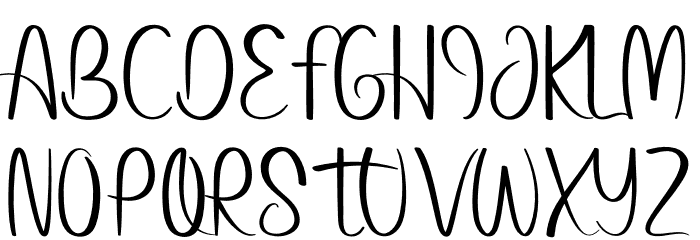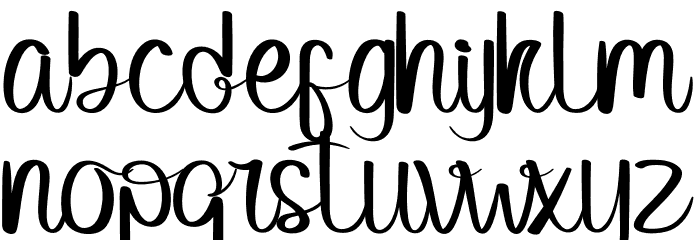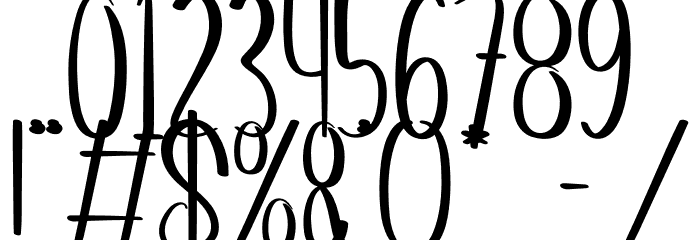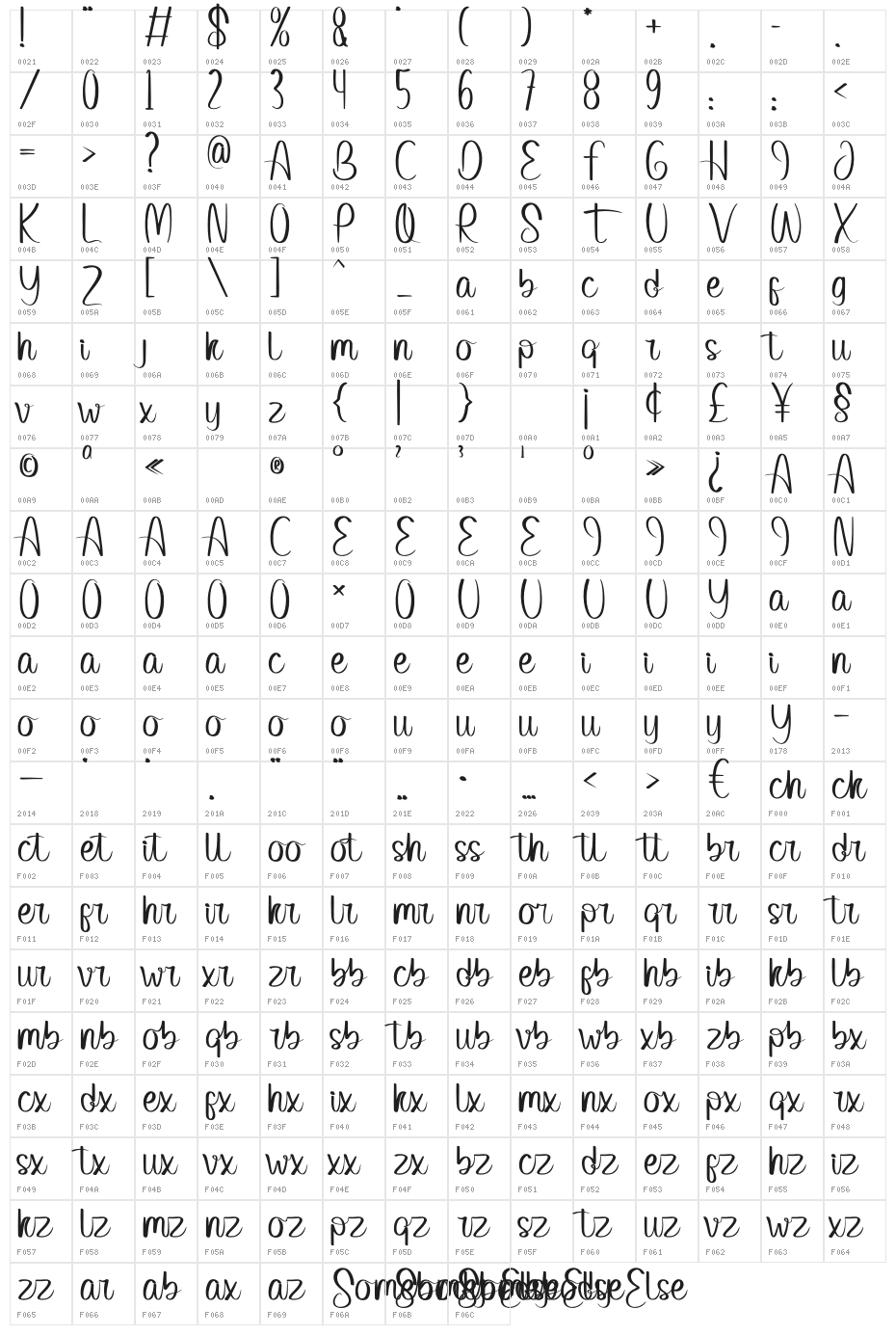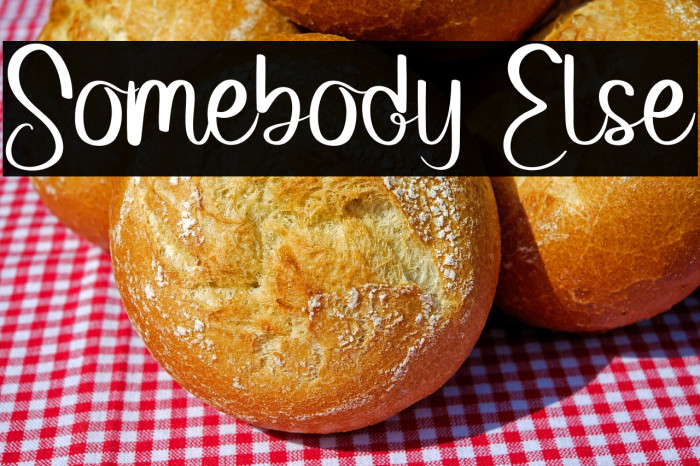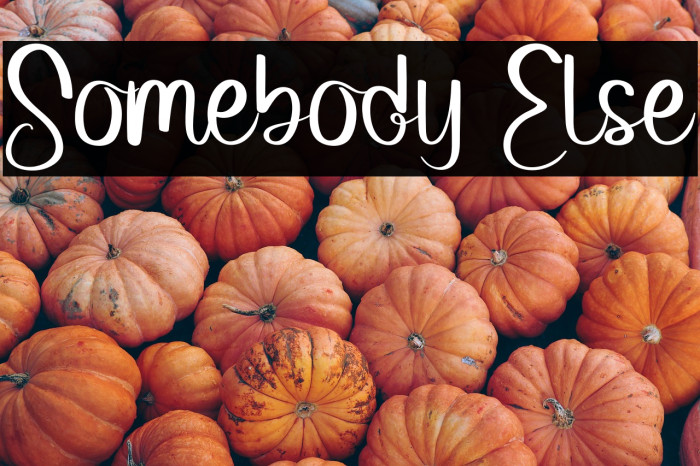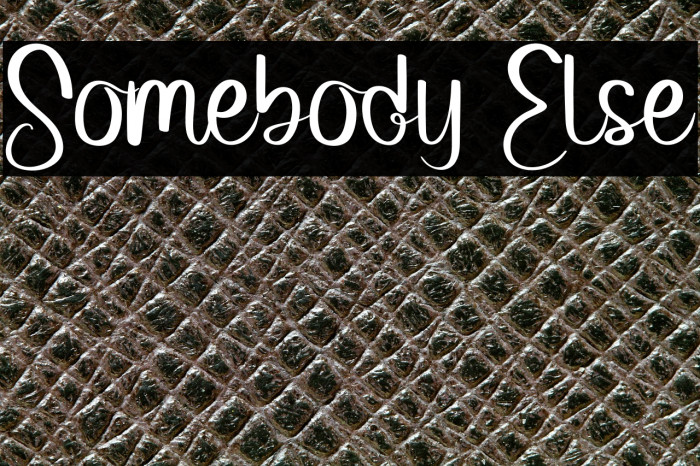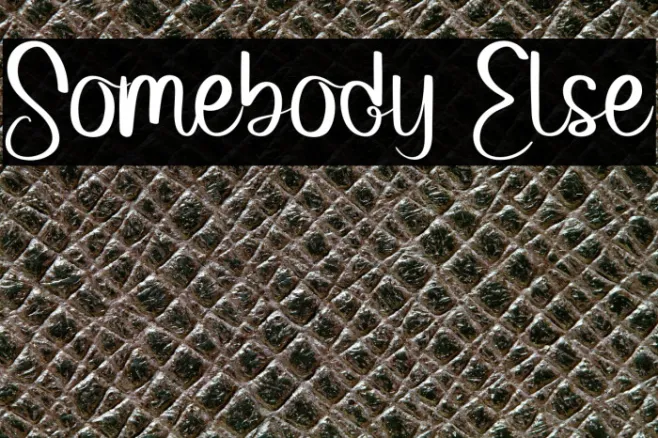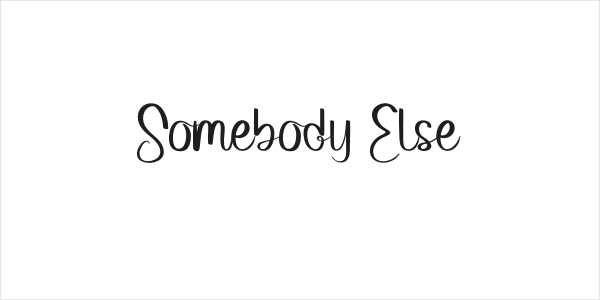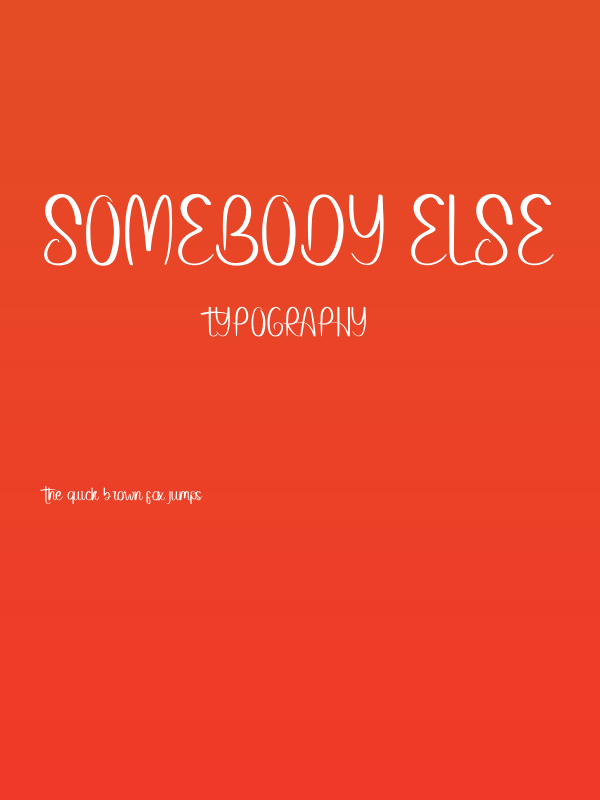
Somebody Else Font
This font features a playful and whimsical style with a handwritten appearance. The letters are characterized by their fluid, looping strokes and varying thickness, giving it a dynamic and lively feel. The uppercase letters are tall and slender, while the lowercase letters are more rounded and compact, creating a nice contrast. The numbers and special characters maintain the same playful aesthetic, making the font versatile for various uses. The overall design is both modern and casual, suitable for projects that require a personal touch.
A playful, handwritten-style font with fluid, looping strokes.
- Proposed Projects: Ideal for greeting cards, invitations, playful branding, and social media graphics.
- Overall Style: Modern, Decorative
- Use Case: Logos, Headlines, Invitations